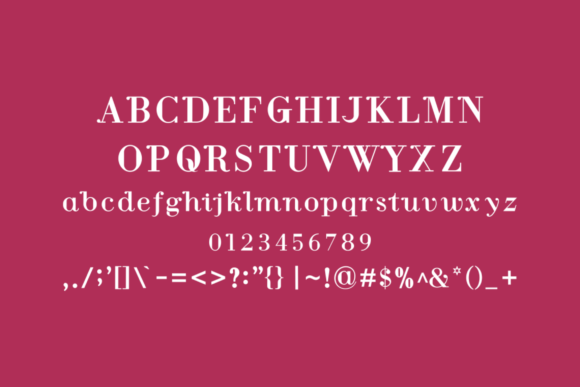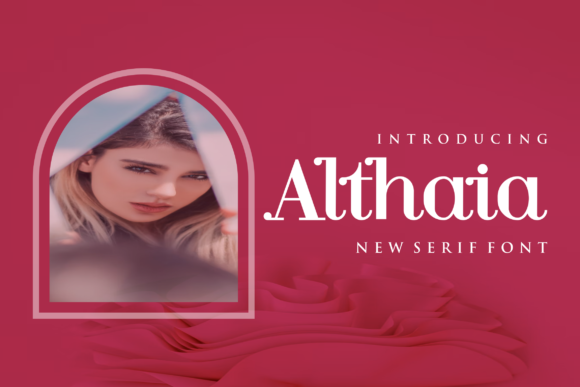
Introducing Althaia Font: The Bold and Stylish Serif for Your Branding Projects
In the world of typography, a font can make or break a design. When it comes to creating a lasting impression, the right font can elevate your branding project from ordinary to extraordinary. If you’re on the hunt for a bold and stylish serif font that can add a touch of sophistication to your designs, look no further than Althaia Font. In this article, we’ll dive into the world of Althaia Font, exploring its features, benefits, and uses, and why it’s a must-have for designers and crafters alike.
What is Althaia Font?
Althaia Font is a bold and stylish serif font that is perfect for any branding project. Its unique blend of classic and modern elements makes it an excellent choice for designers looking to add a touch of elegance to their work. The font’s serif design gives it a sophisticated and timeless feel, while its boldness ensures that it stands out in any context.
Key Features of Althaia Font
So, what makes Althaia Font so special? Here are some of its key features:
- Bold and Stylish: Althaia Font is a bold and stylish serif font that is sure to make a statement in any design.
- Versatile: The font is suitable for a wide range of branding projects, including logos, t-shirt printing, sporting design, and more.
- Classic yet Modern: Althaia Font’s unique blend of classic and modern elements makes it an excellent choice for designers looking to create a timeless design.
- High-Quality: The font is designed with high-quality and precision, ensuring that it looks great in any context.
Benefits of Using Althaia Font
So, why should you choose Althaia Font for your branding projects? Here are some of the benefits of using this amazing font:
- Stand Out: Althaia Font’s boldness ensures that your design stands out in a crowded market.
- Professional Look: The font’s serif design gives it a professional and sophisticated look that is perfect for any branding project.
- Easy to Read: Despite its boldness, Althaia Font is easy to read, making it perfect for body text and headlines.
- Customizable: The font is highly customizable, allowing you to adjust its size, color, and style to fit your design needs.
Use Cases for Althaia Font
So, what can you use Althaia Font for? The possibilities are endless! Here are some use cases to get you started:
- Logo Design: Althaia Font is perfect for creating bold and stylish logos that make a lasting impression.
- T-Shirt Printing: The font’s boldness and stylishness make it perfect for t-shirt printing and other apparel.
- Sporting Design: Althaia Font’s modern and sleek design makes it perfect for sporting design, including jerseys, posters, and more.
- Branding: The font is suitable for any branding project, including business cards, brochures, and more.
Tips for Using Althaia Font
Here are some tips for using Althaia Font in your designs:
- Pair it with a Sans-Serif Font: Pairing Althaia Font with a sans-serif font can create a beautiful contrast that adds visual interest to your design.
- Use it for Headlines: Althaia Font is perfect for headlines and titles, where its boldness and stylishness can make a lasting impression.
- Experiment with Colors: Don’t be afraid to experiment with different colors and gradients to add depth and visual interest to your design.
In conclusion, Althaia Font is a bold and stylish serif font that is perfect for any branding project. Its unique blend of classic and modern elements makes it an excellent choice for designers looking to add a touch of elegance to their work. With its versatility, high-quality design, and ease of use, Althaia Font is a must-have for designers and crafters alike. So why wait? Download Althaia Font today and take your designs to the next level!